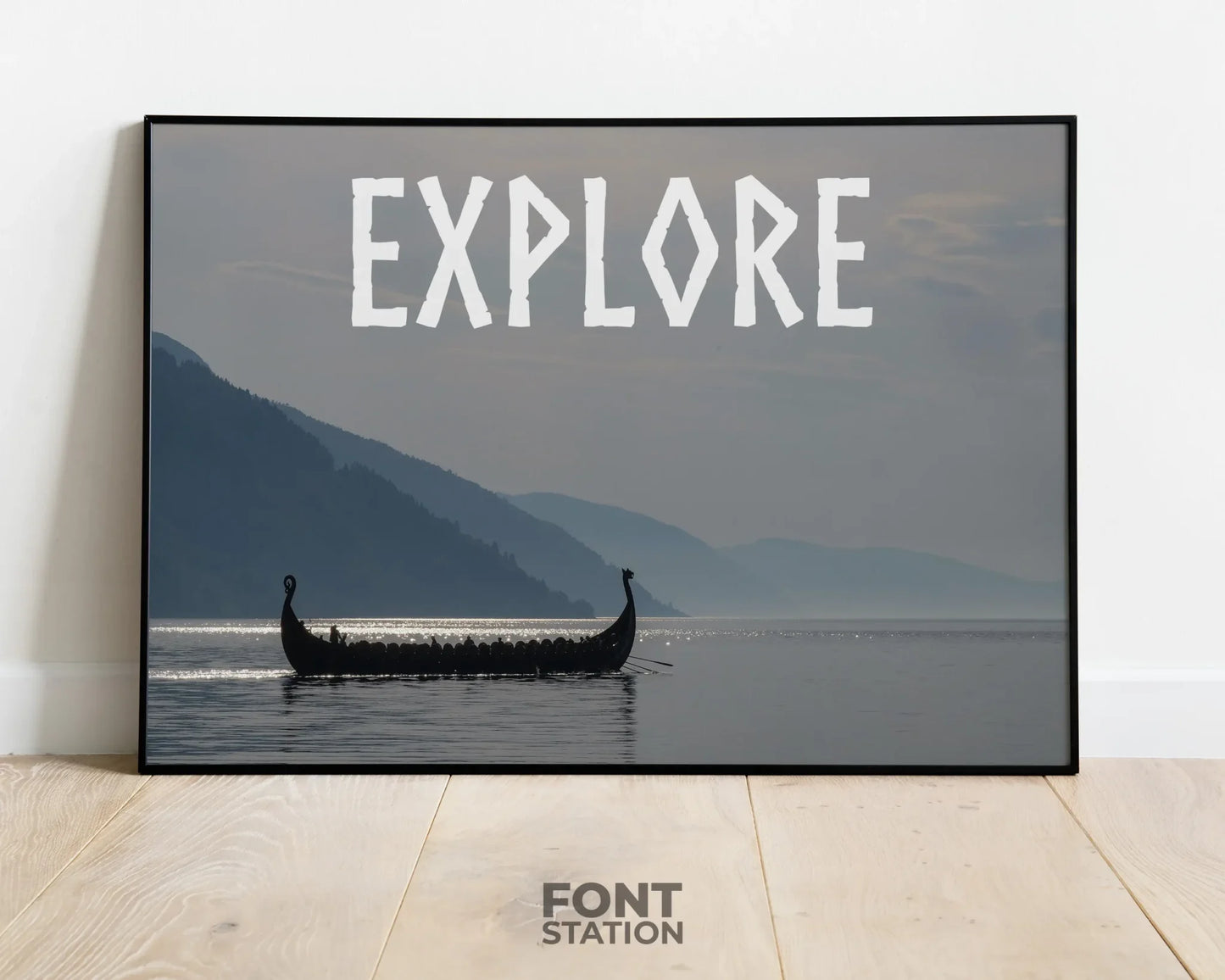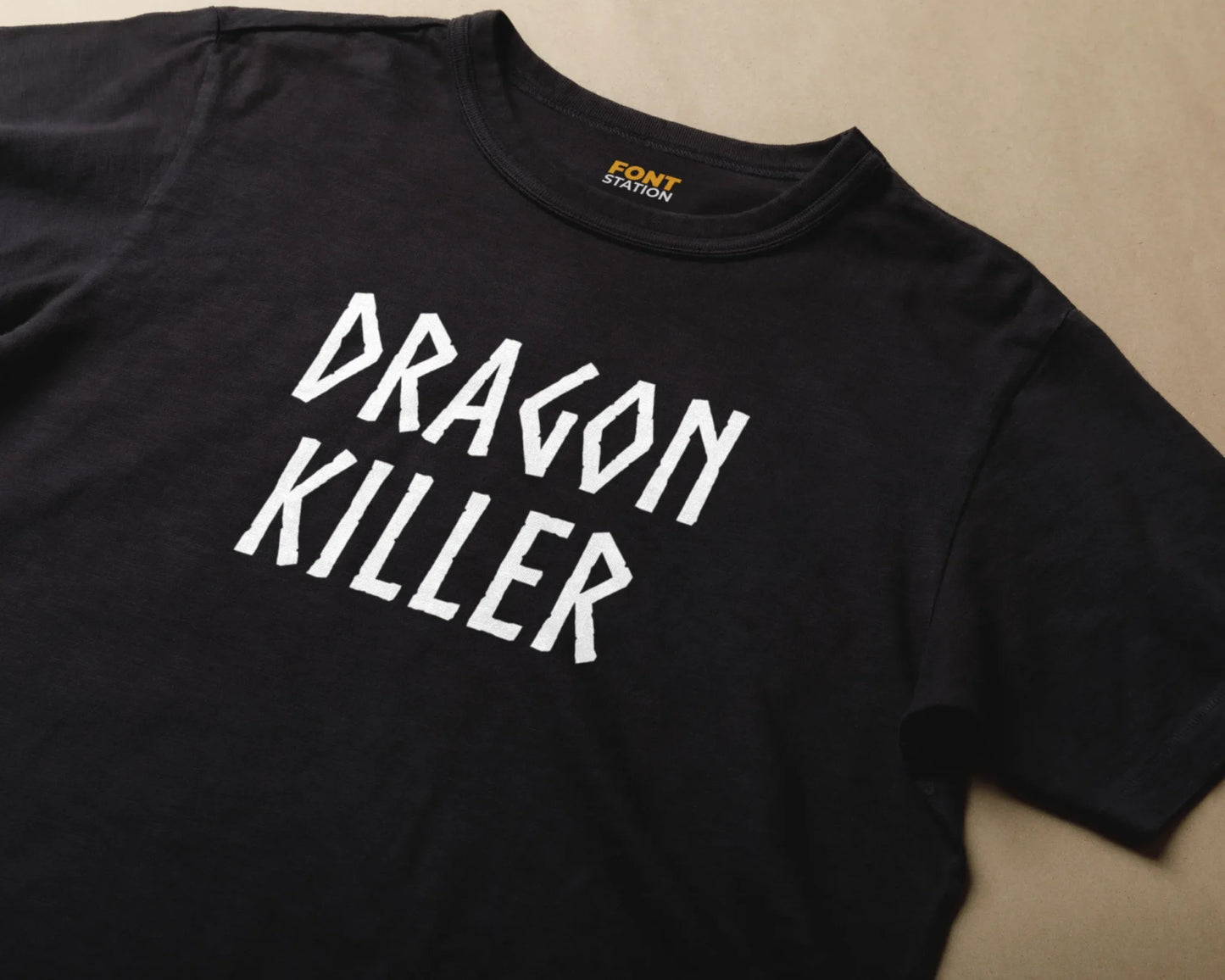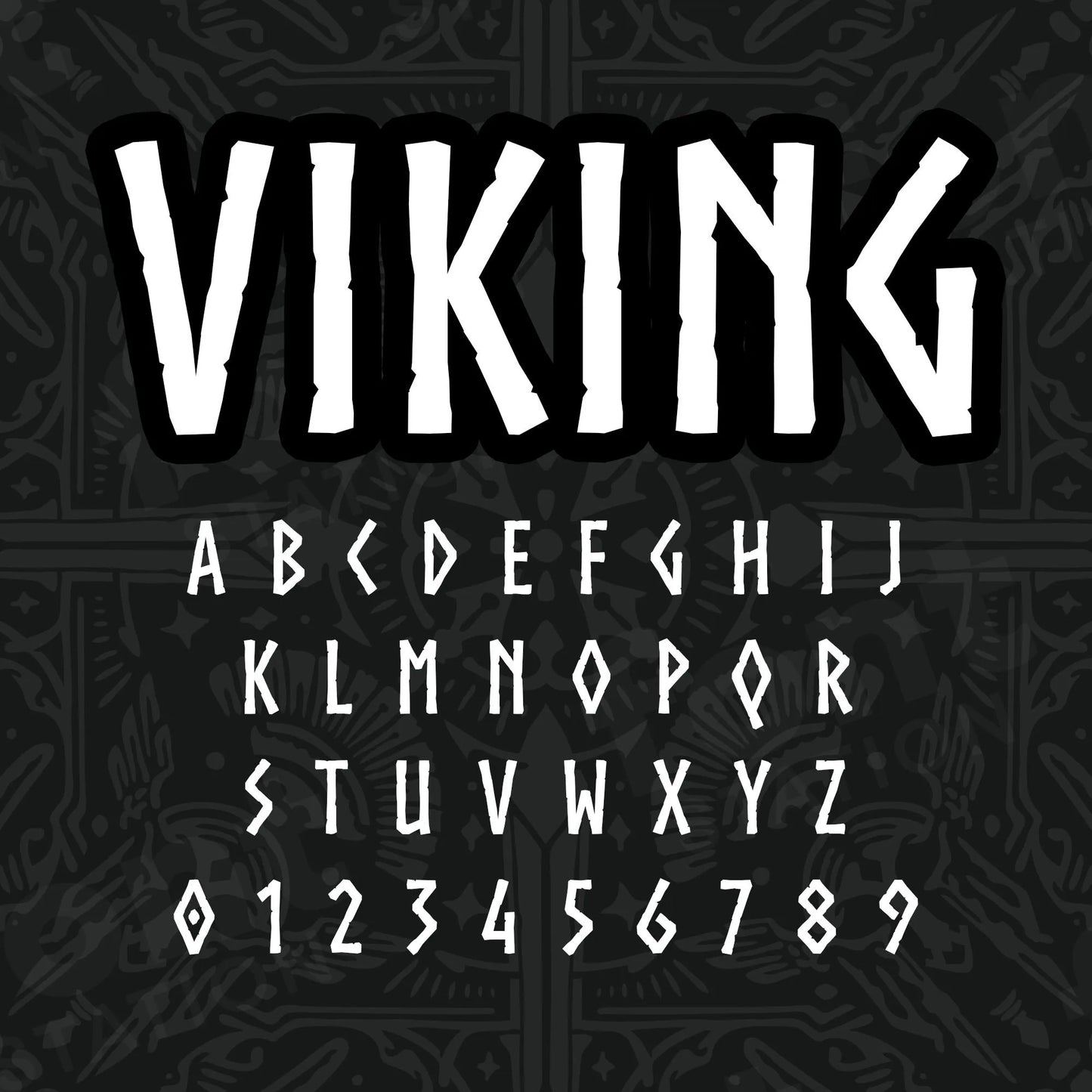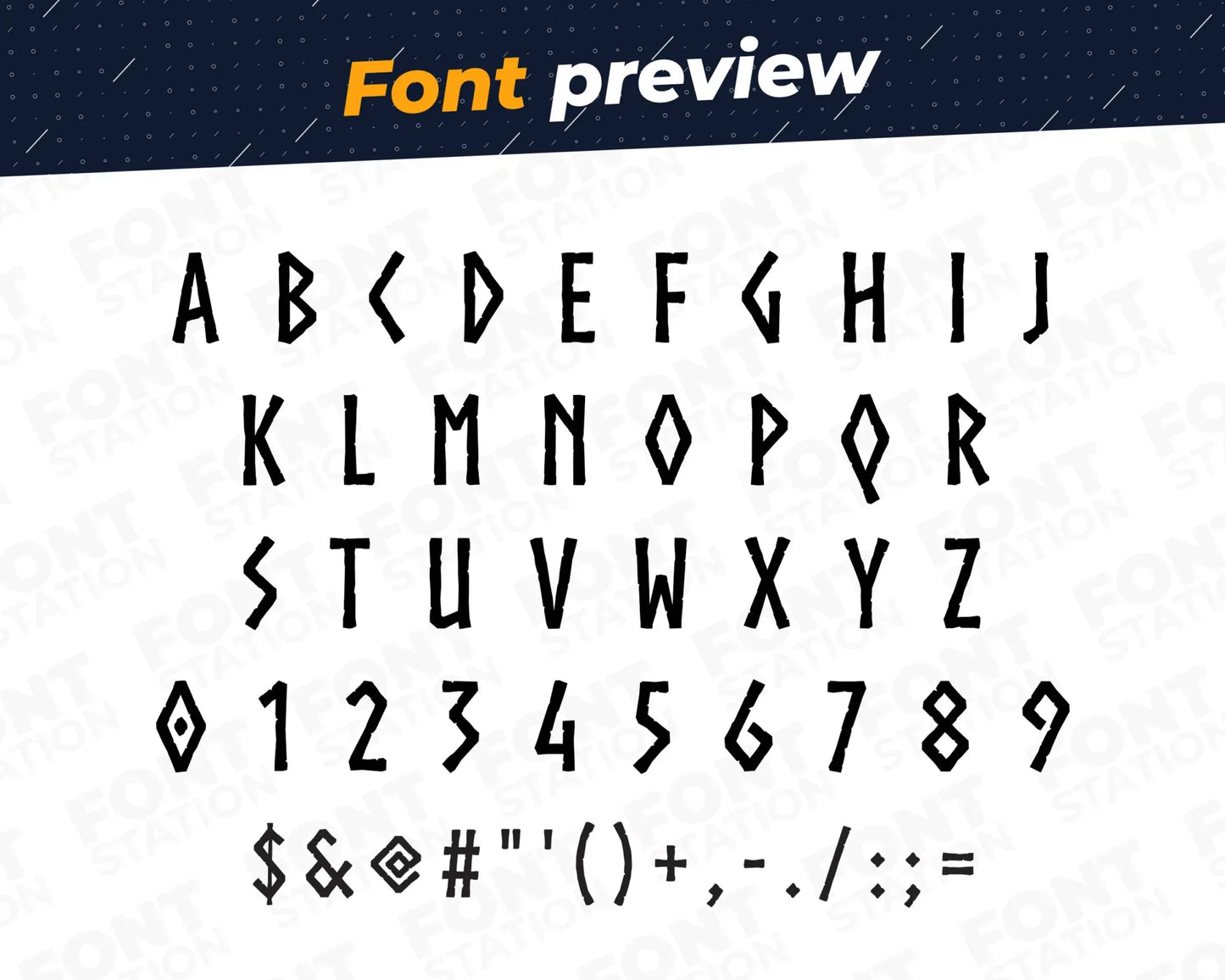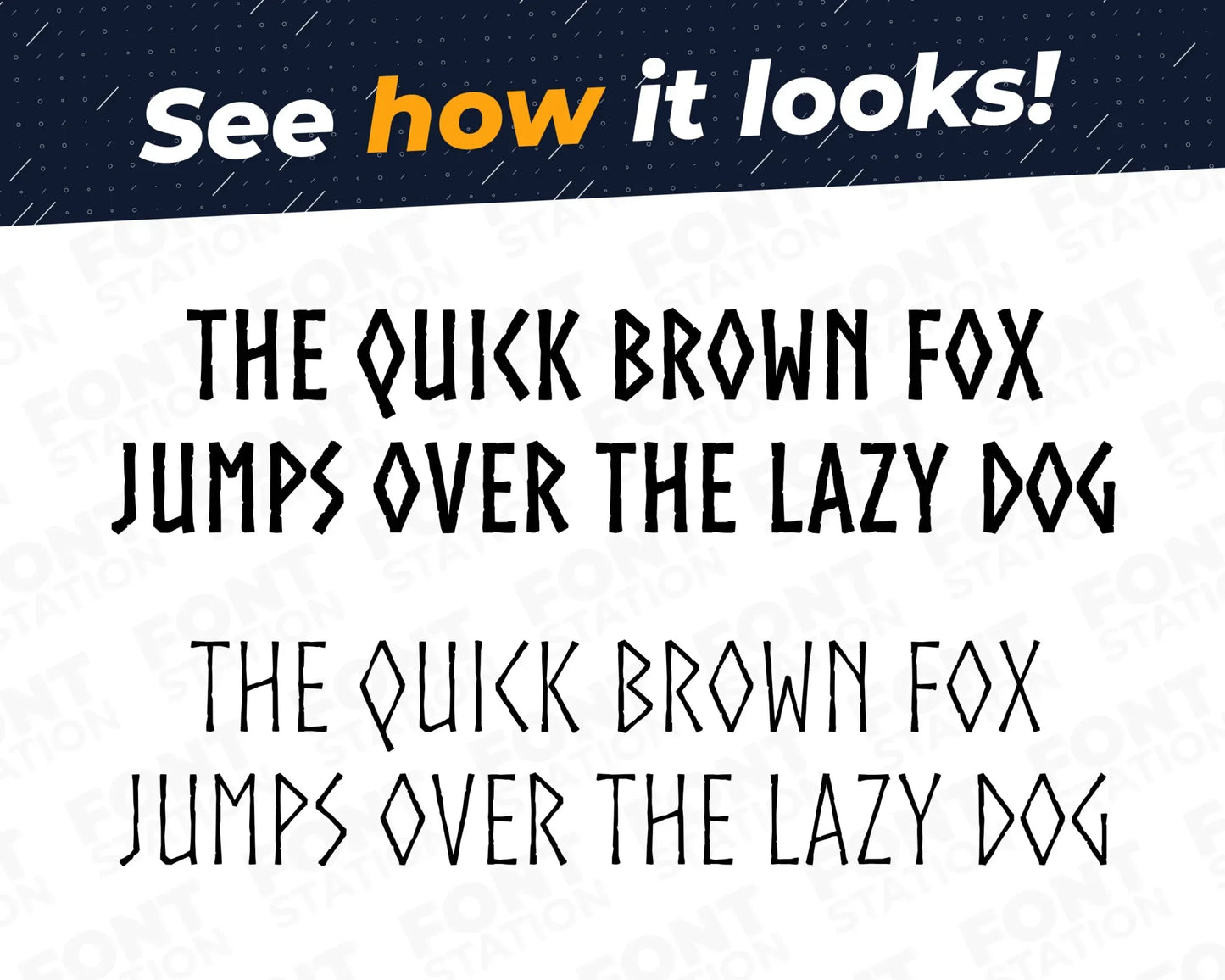
Viking Font
Our Viking typeface, inspired from Nordic Runes font
Grab your computer, tablet or other device and start creating right now with our Viking font letters! Our Nordic Runes typography is inspired from The Northman movie font, making it ideal for various digital creations (logo, word...), sublimation, cake toppers, stickers, event decorations, and more.
Professional Quality: Every letter is carefully designed for clean lines and a consistent look across all characters, ensuring professional results in your creations.